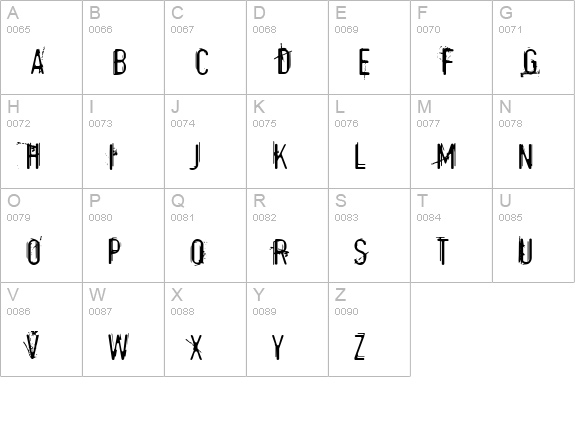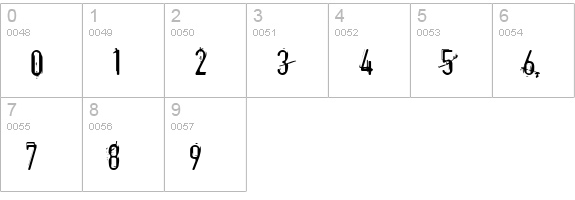
Astonished Font Details
Introducing Astonished font, a captivating and striking typeface that will leave you in awe with its unique and modern design. This font is perfect for adding a touch of surprise and excitement to your projects. The bold and eye-catching characters will draw attention and make a lasting impression. The Astonished font is not only visually stunning but also incredibly versatile, making it suitable for a wide range of design projects. Whether you're creating posters, logos, invitations, or social media graphics, this font will help you stand out from the crowd. Best of all, Astonished font is available for free download at FontsMarket.com, so you can start using it in your projects right away without breaking the bank. Don't miss out on this fantastic opportunity to add a touch of astonishment to your designs with this amazing font. Download Astonished font today and prepare to be amazed!